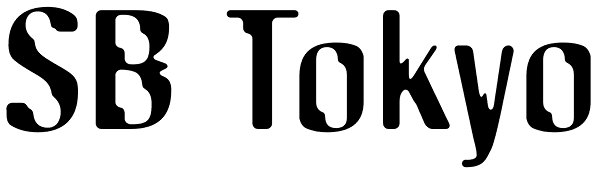
SB Tokyo
SB Tokyo was designed for an exhibition of Japanese photography in London. The project required a hi-tech typeface with a blurry, photographic optical appearance, and SB Tokyo is just that.